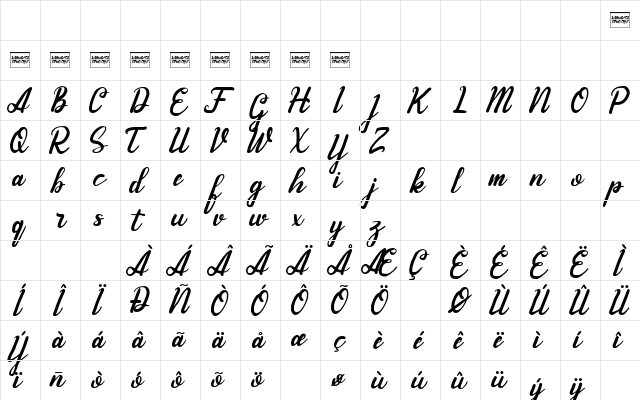
Andhyta (demo) Regular
| Designer | kamukita std |
Design Context for Andhyta (demo) Typeface
Andhyta (demo) is a composed and adaptable typeface that performs quietly and consistently across a wide range of design contexts.